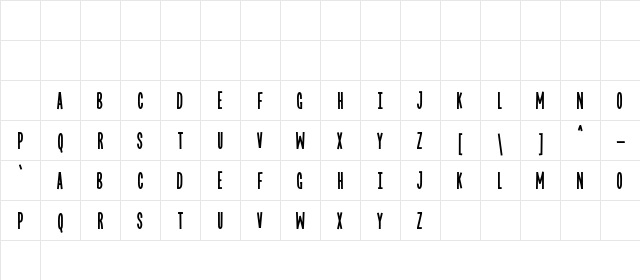
Complete Hallowean Regular glyph index. Displaying only characters natively supported by Hallowean Regular font.
Hallowean is a composed and adaptable typeface that performs quietly and consistently across a wide range of design contexts.